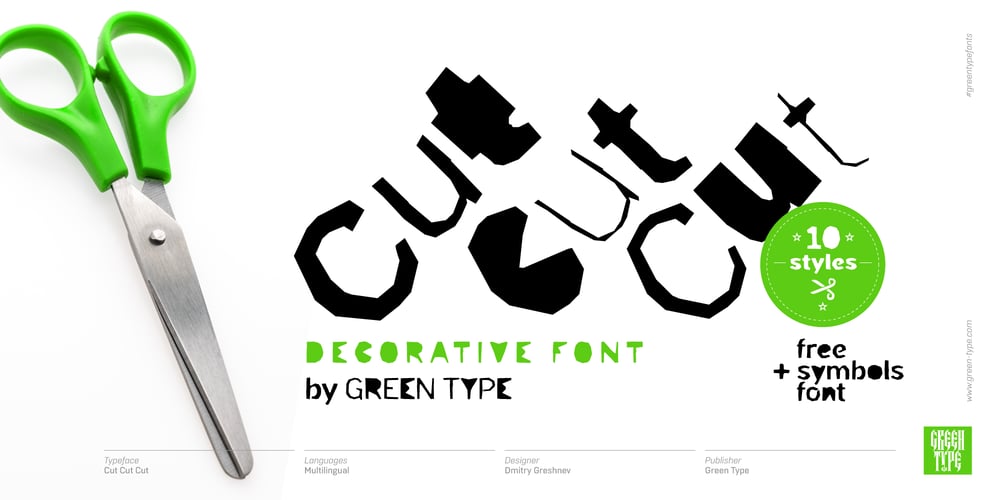
Cut Cut Cut Font Family was designed by Dmitry Greshnev and published by Green Type. Cut Cut Cut contains 11 styles and family package options. Cut Cut Cut is a decorative font family. Designed for use in outdoor advertisements, branding, packaging. Cut Cut Cut is also perfect for children’s books and cartoon, greeting cards and posters. It is also suitable for use in online activities.Cut Cut Cut contains latin, cyrillic and greek gliphs. There is also a free symbols style.